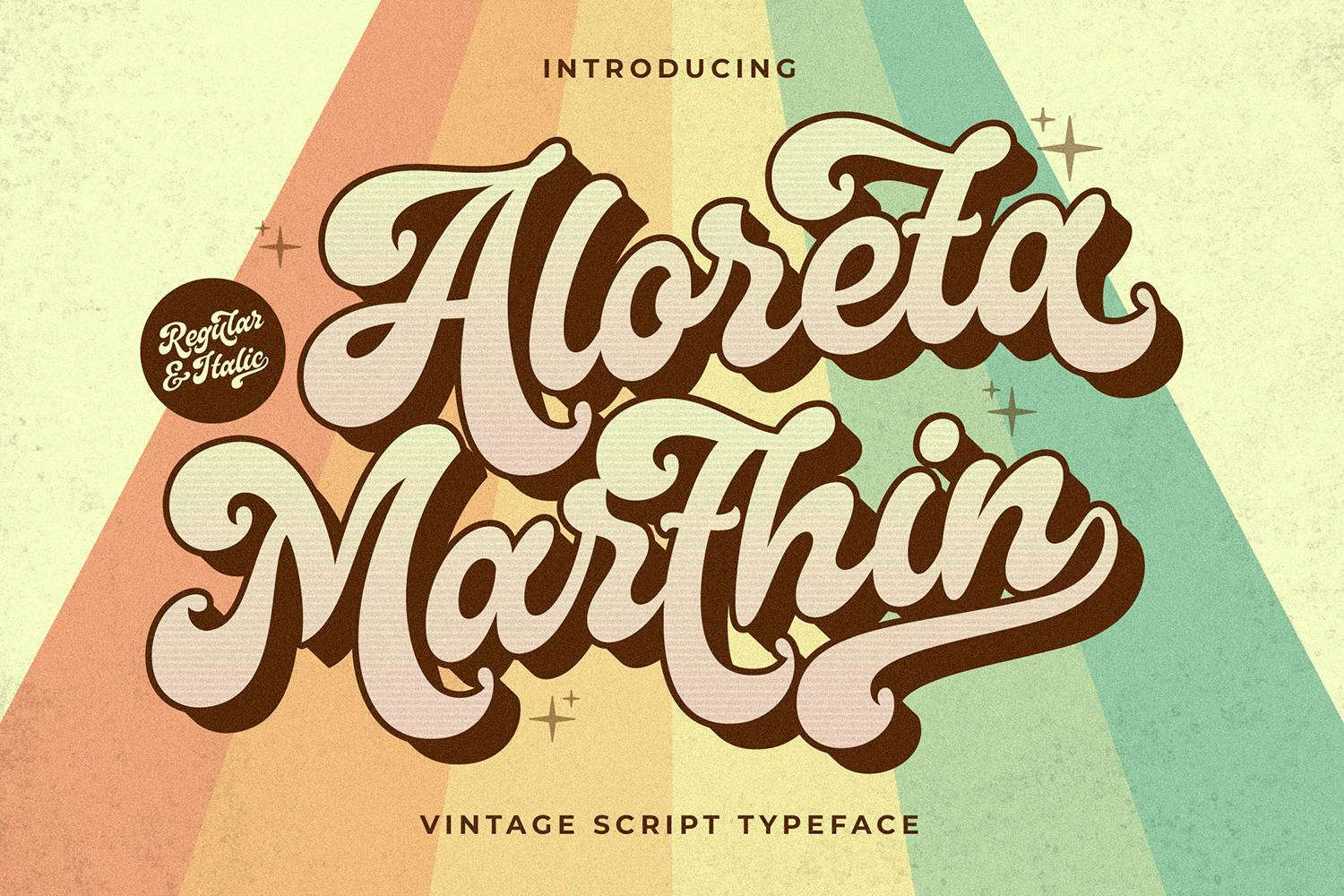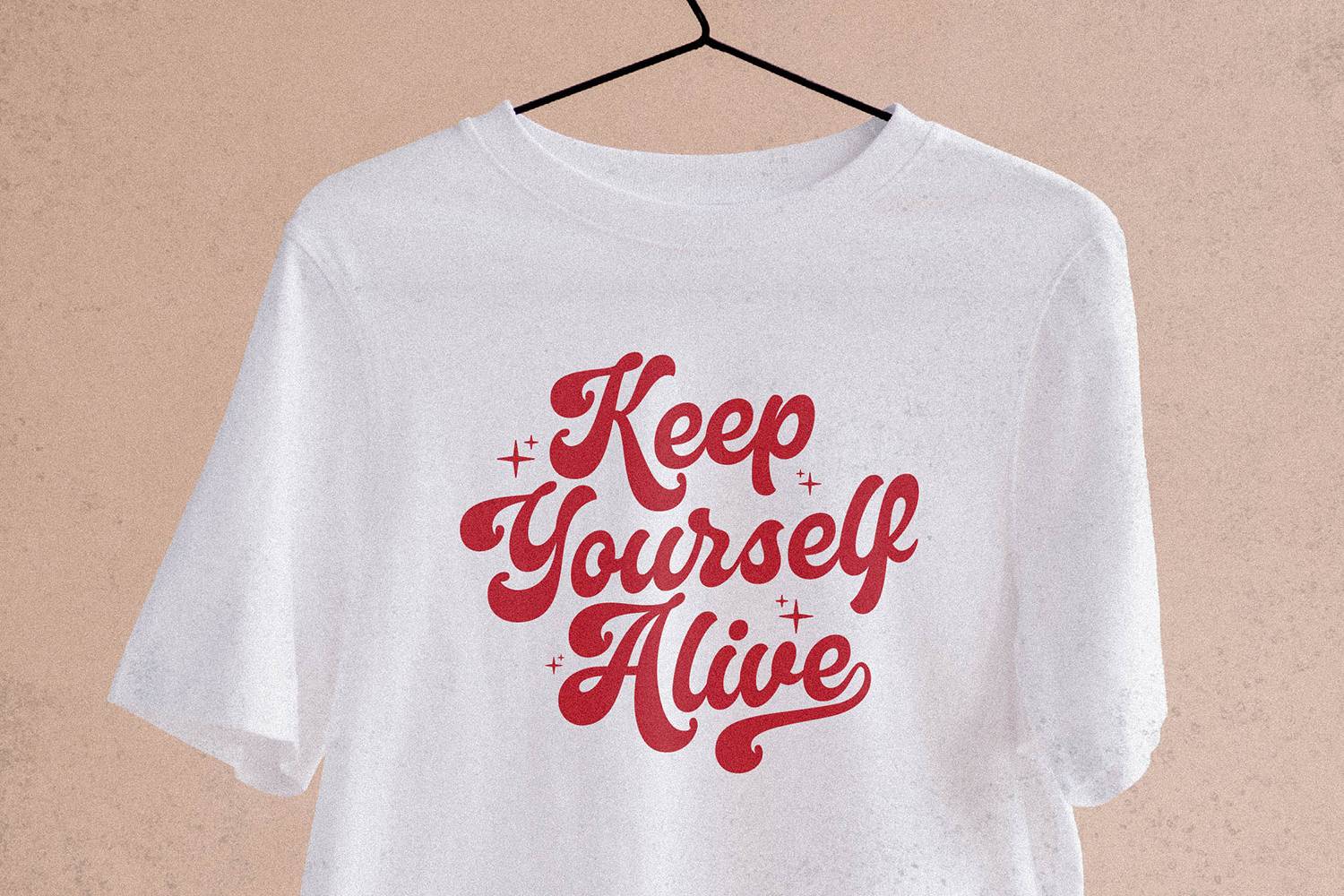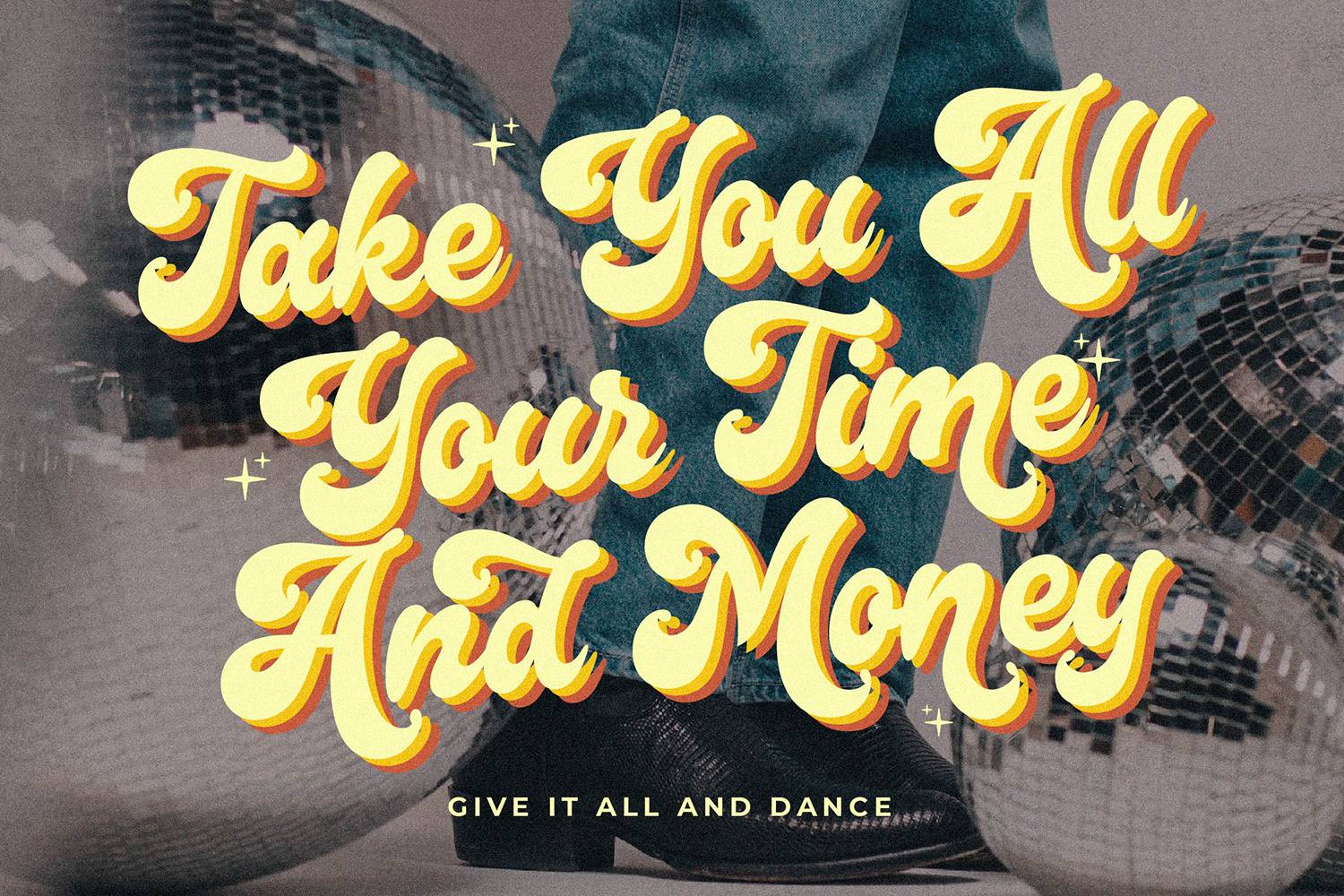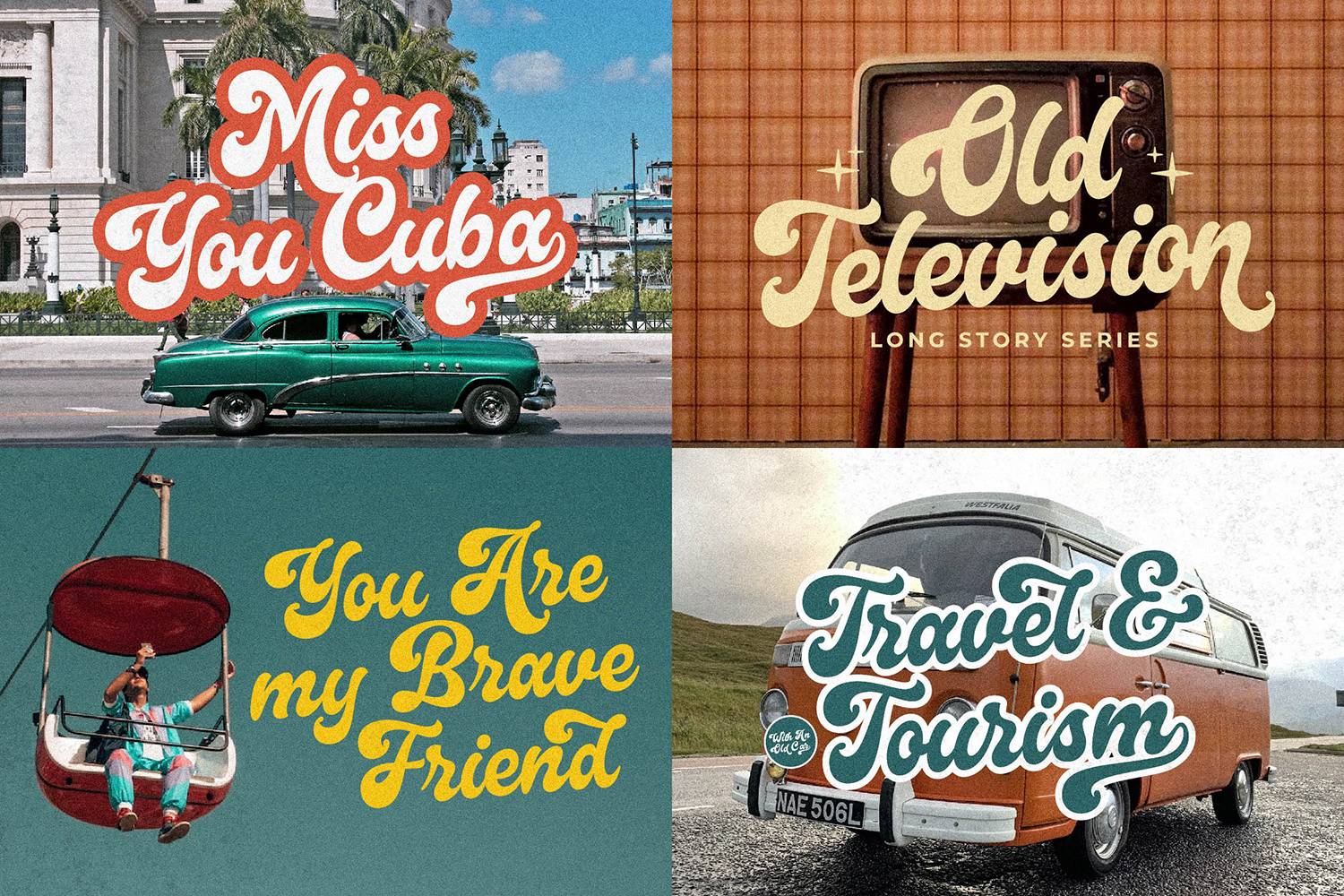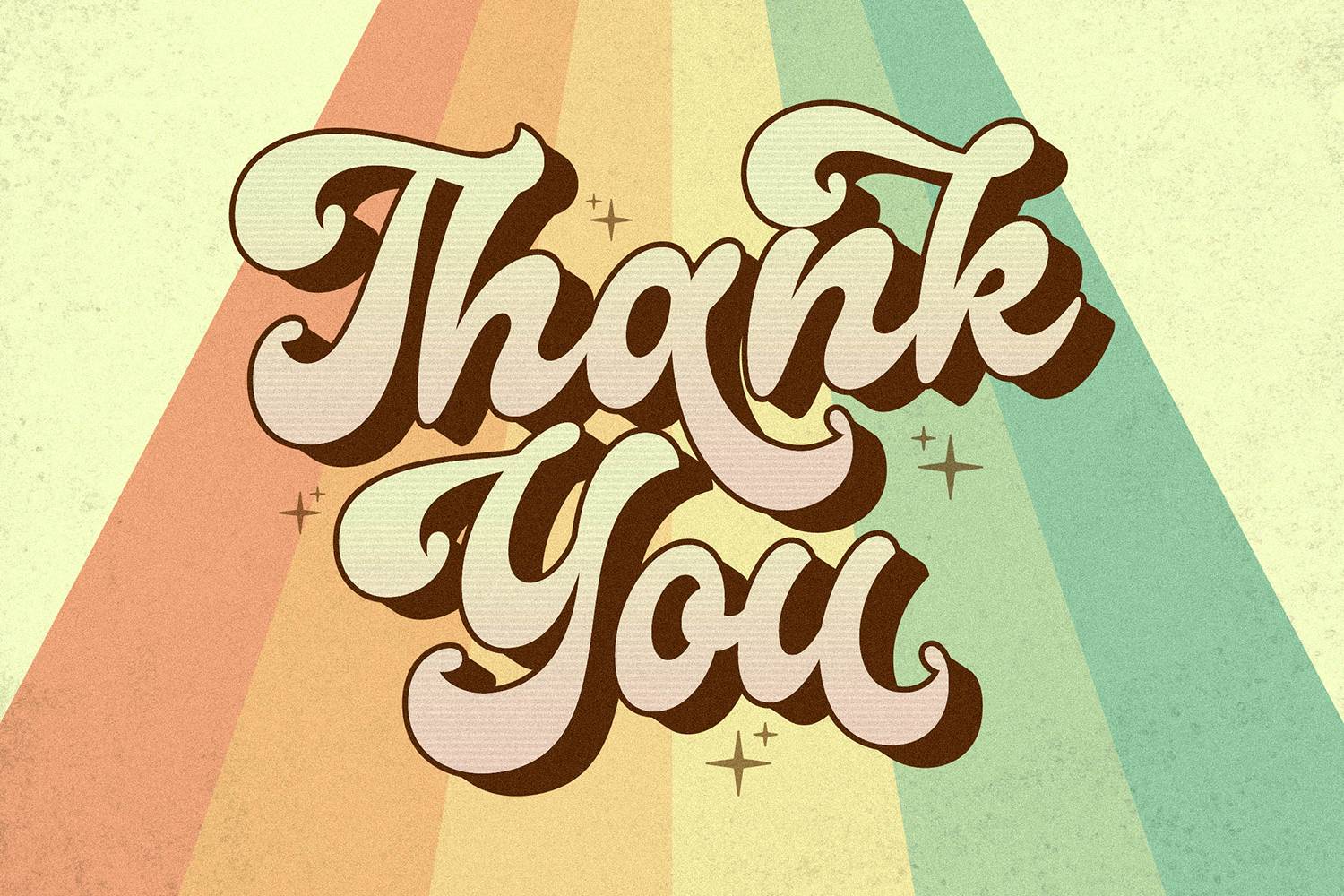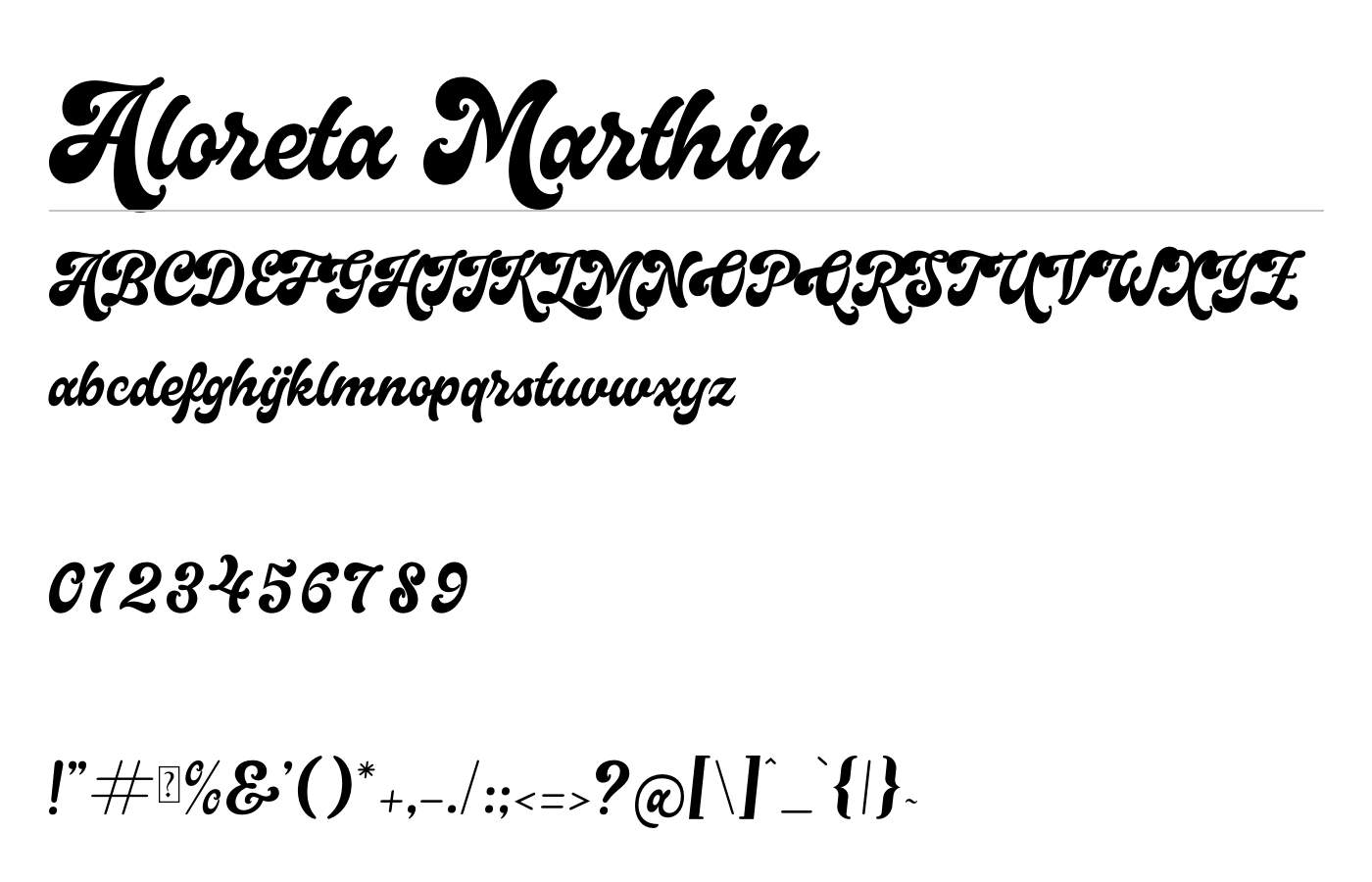
Aloreta Marthin is a bold, decorative script font with a strong vintage flair, featuring thick strokes and elegant curls that give it a lively and expressive character. Its fluid yet dramatic letterforms make it perfect for eye-catching headlines, logos, and branding where a retro, playful, and artistic style is desired. This font works best in designs aiming to communicate personality and charm with a touch of bold sophistication.
Aloreta Marthin Font
About Aloreta Marthin Font